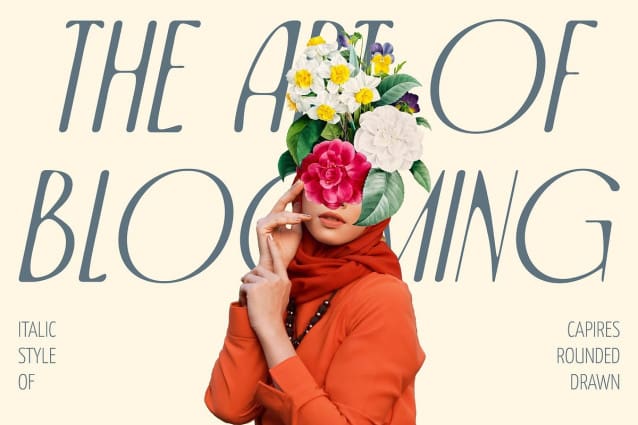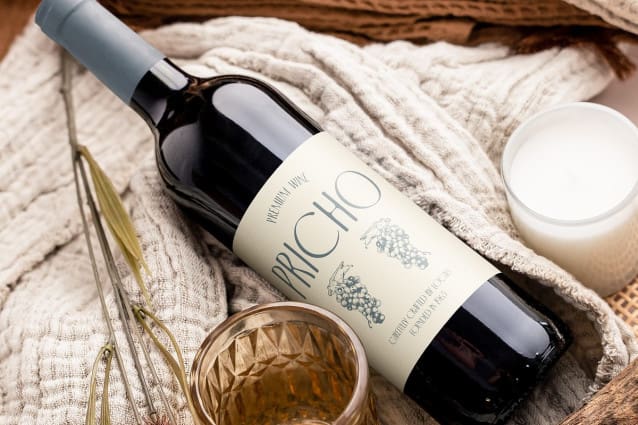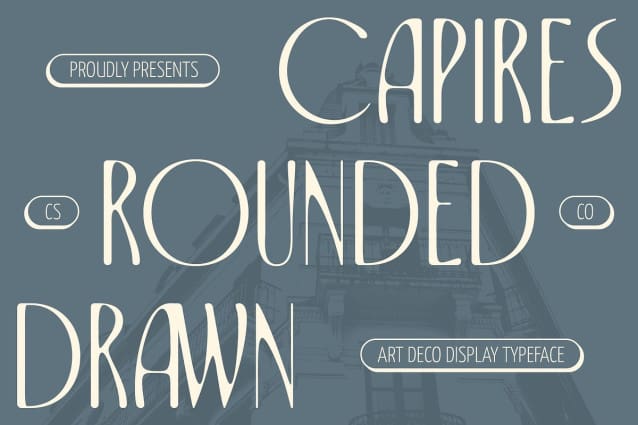
Capires Rounded Drawn Font
Capires Rounded Drawn Font is a modern sans-serif font that combines the geometric elegance of Art Deco with a hand-drawn effect, offering a fresh balance between sleek design and artistic individuality. The clean lines of Art Deco are softened by rounded edges, creating a bold yet approachable style. This unique fusion of structured form and artistic touch makes the font stand out, perfect for creative projects that seek a sophisticated but personal appeal.
Hand-Drawn Charm with Geometric Precision The hand-drawn effect of Capires adds a sense of warmth and authenticity, while the precise geometry of its Art Deco influences ensures the font maintains a sleek, modern feel. This juxtaposition of handcrafted charm and polished design makes it ideal for branding that wants to convey elegance with a personalized twist. It’s the perfect choice for logos, packaging, or any project that requires both visual impact and artistic detail.
Versatile for Creative and Modern Designs This rounded drawn font is versatile enough for a wide range of applications, from high-end branding and stylish packaging to editorial layouts. Its rounded shapes and drawn effect offer a friendly, approachable quality, while its geometric Art Deco roots keep it grounded in modern, refined aesthetics. Whether you’re aiming for luxury or creativity, this font offers the best of both worlds.